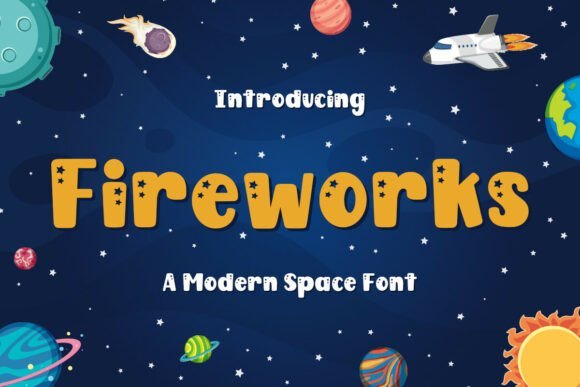
The Spark That Ignites Imagination
Remember the excitement of watching fireworks light up the night sky, filling your heart with wonder and awe? That same spark of creativity and energy is what drives the design of the Fireworks Font. This bold and energetic display font is specifically crafted to capture attention and spark imagination in young minds.
With its lively, rounded letterforms and playful curves, Fireworks Font brings a sense of excitement and creativity to every project it touches. Its readability and whimsical style make it a valuable tool for designers looking to add a burst of energy to their work. Whether it’s for school themes, educational games, or children’s books, Fireworks Font delivers fun and engagement every time. Its expressive and dynamic shapes help bring stories to life, making it a must-have for any designer working with kids.
Key Features of Fireworks Font
- Font Family: Fireworks is a display sans-serif font, designed for use in digital media and print applications.
- Character Count: The font family includes over 1,000 glyphs, including Latin, Cyrillic, and Greek alphabets, as well as punctuation and symbols.
- Unique Characteristics: Fireworks font features a distinctive, hand-drawn aesthetic with a mix of geometric and organic elements, making it stand out in a crowded market.
Fireworks Font Review
Overall, I think Fireworks Font is a visually stunning choice for anyone looking to add some explosive flair to their design projects. ✨ The font’s dynamic, hand-painted style is reminiscent of real fireworks, and it’s sure to grab attention.
- Unique and eye-catching design: Fireworks Font is sure to stand out in any design project, making it perfect for adding a touch of whimsy or drama.
- High-quality glyphs: The font’s glyphs are well-crafted and detailed, making it a pleasure to work with.
- Perfect for creative projects: Whether you’re designing a party invitation, a wedding card, or a social media post, Fireworks Font is a great choice.
- Limited legibility: Due to its hand-painted style, Fireworks Font can be difficult to read at smaller sizes or in certain contexts.
- Not suitable for body text: While Fireworks Font is perfect for headlines or decorative text, it’s not ideal for large blocks of body text.
- May not be accessible for all users: The font’s unique style can make it challenging for some users to read, particularly those with visual impairments.
Fireworks Font is a fantastic choice for designers looking to add some excitement and energy to their projects. While it may have some limitations, its unique style and high-quality glyphs make it a great addition to any design toolbox.
Getting the Most Out of Fireworks Font
To get the most out of the Fireworks Font, use it to add a touch of drama and excitement to your designs. Pair it with bold colors and eye-catching graphics to create a memorable visual impact.
The Fireworks Font is perfect for:
- New Year’s Eve and summer fireworks-themed designs.
- Party invitations and promotional materials.
- Summer and outdoor-themed designs, such as beach or festival designs.